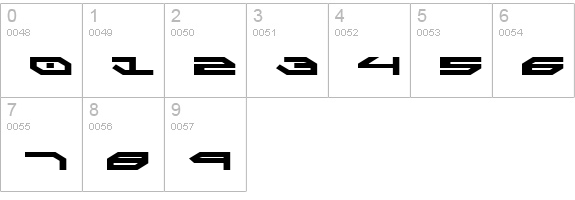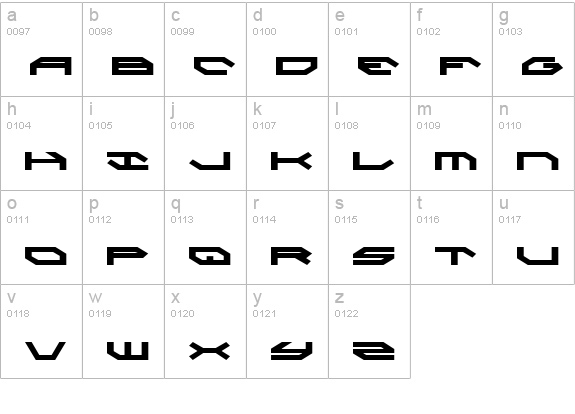
Taskforce font is a modern and versatile typeface that exudes strength and professionalism. With its clean lines and sharp edges, Taskforce is perfect for adding a bold touch to any design project. Whether you're creating a logo, poster, or website, this font will make a statement and command attention. What's even better is that Taskforce font is available for free download at FontsMarket.com. This means you can easily access this powerful font and use it in your projects without any cost. Don't miss out on this opportunity to enhance your designs with the bold and impactful Taskforce font. Download it now and take your creations to the next level!